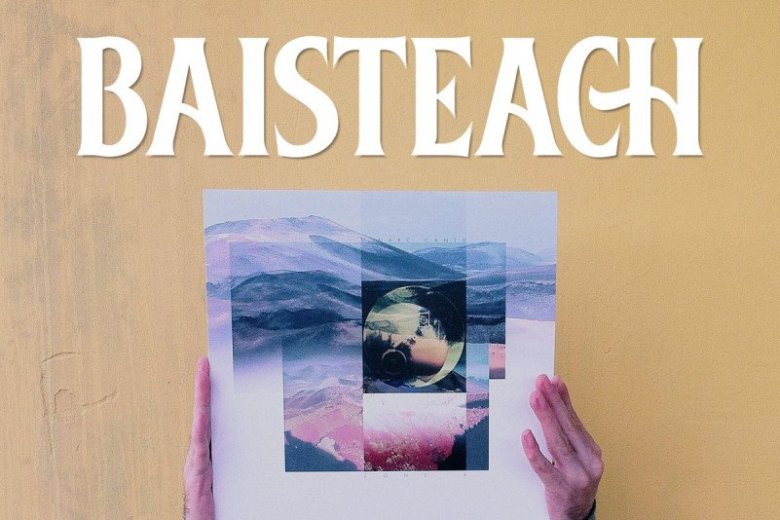
Baisteach Vintage Serif Font
Say hello to the Baisteach Font! This is a geometric original font is created according to current trends and is suitable for minimalistic modern designs. It is designed and shared by Twicolabs Fontdation. Baisteach Vintage Serif Font – inspired from early 1900’s typography that often used in signpaintings, packaging labels, and advertisements. This typeface is made of sharp serifs, clean edges and strong form, give you a simple yet impactful feels. Suits best for headline, logo/logotype, and many more. If you’re a fan of classic typography, make sure you add this font to your design toolbox.